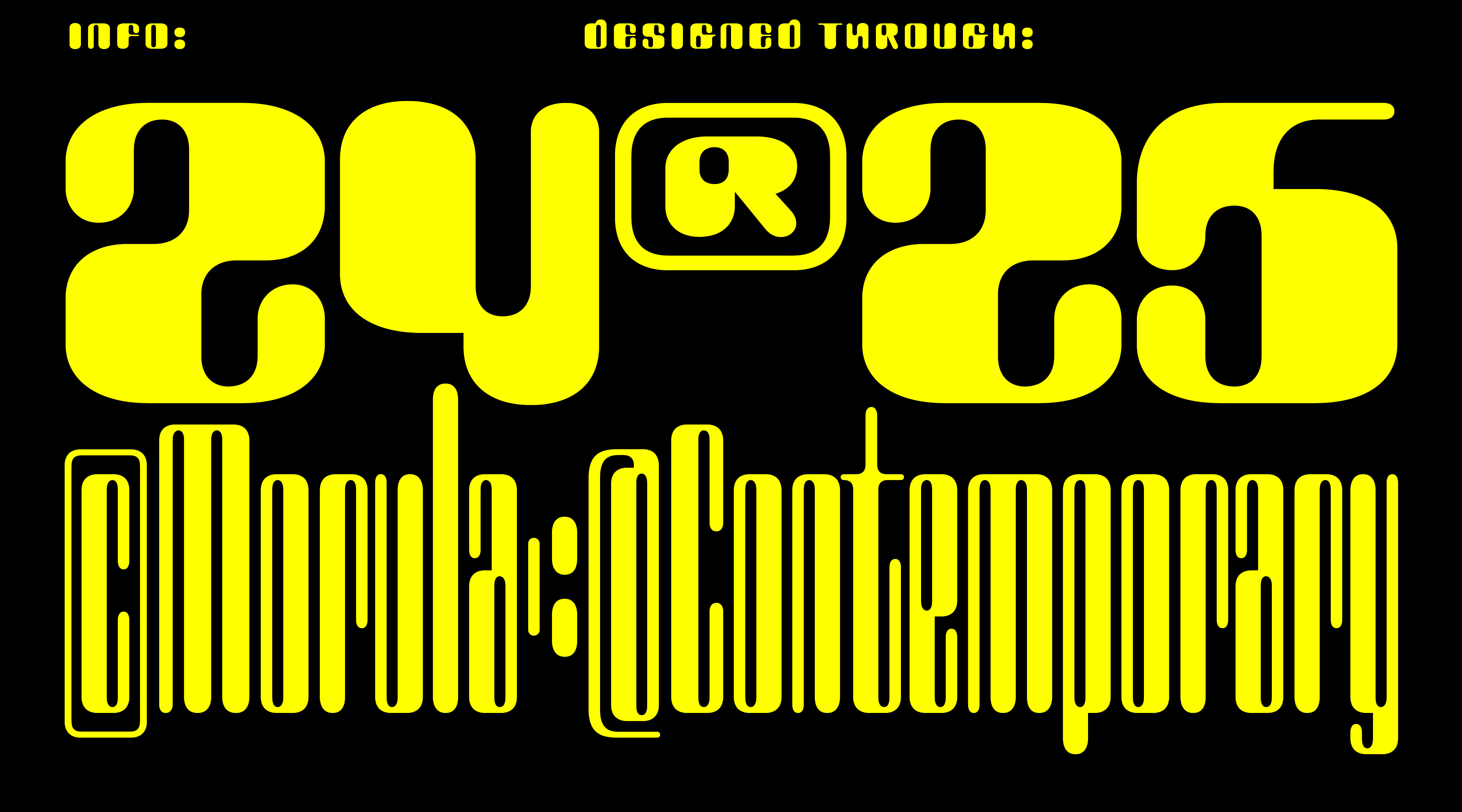
Foundry:
Morula Type
Category:
other
Tone:
casual, weird
Use size:
large, medium
Width:
narrow, normal, wide
Weight:
bold
Contrast:
medium
Other:
variable, italic, rounded
About the typeface
MRL Transit draws inspiration from Magnetic Ink Character Recognition (MICR) fonts, reimagining their functional origins with a rounded, retro flair. More approachable than Westminster, gentler than Countdown, and more disciplined than Amelia, it blends influences from these and other typefaces into a unified variable family, spanning widths from compressed to extended and delivering a range of design possibilities rarely available in similar fonts. Mirrored alternates round out the system, revealing the diverse structural expressions achievable within this distinctive contrast.